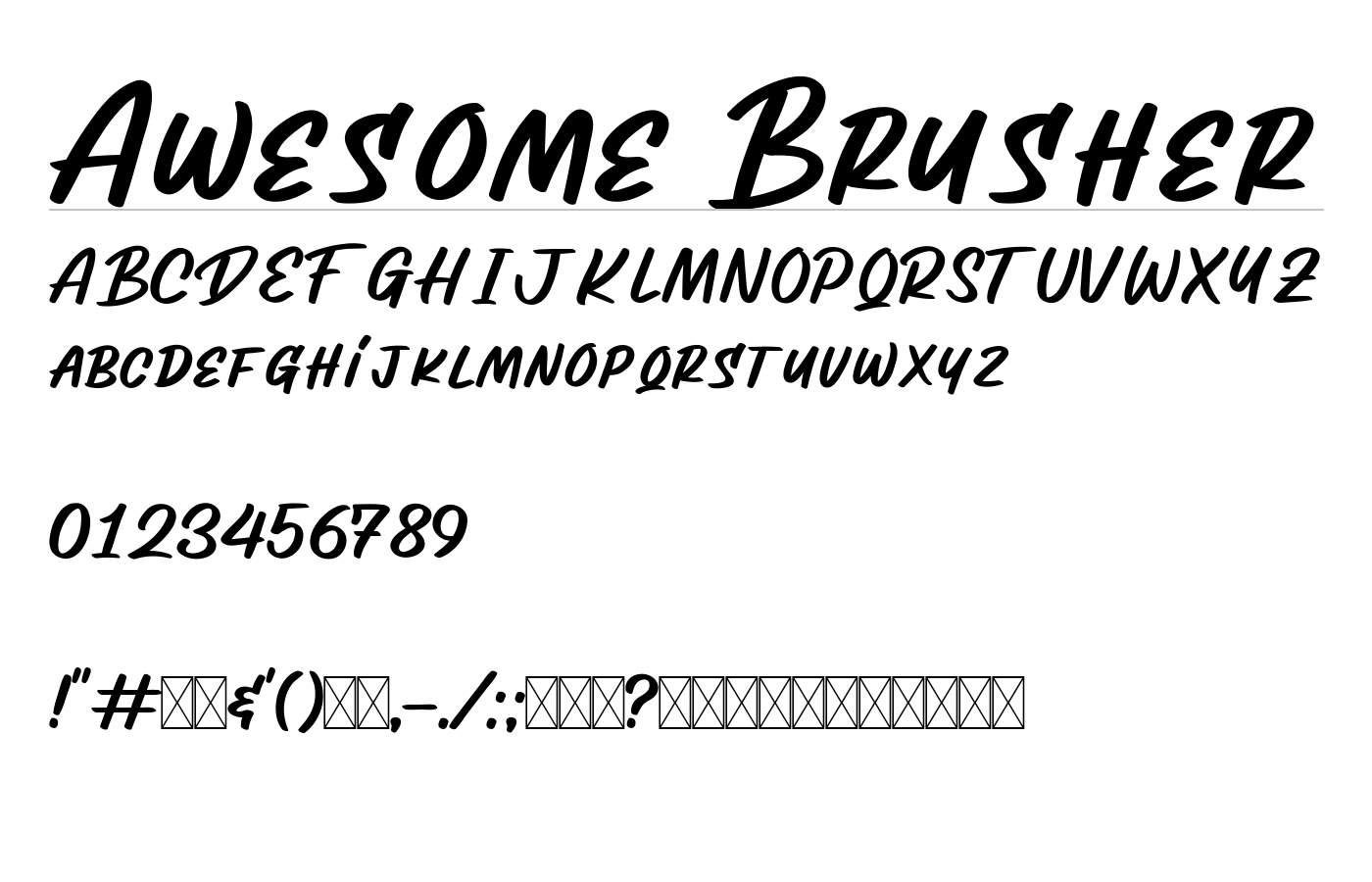
Awesome Brusher is a lively and bold brush script font featuring smooth, dynamic strokes that mimic hand-painted lettering. Its casual yet confident style makes it perfect for creative branding, headlines, and packaging where a personal and energetic touch is desired. This font brings a sense of movement and friendliness, ideal for projects that want to stand out with a modern, artistic flair.
Awesome Brusher Font
About Awesome Brusher Font